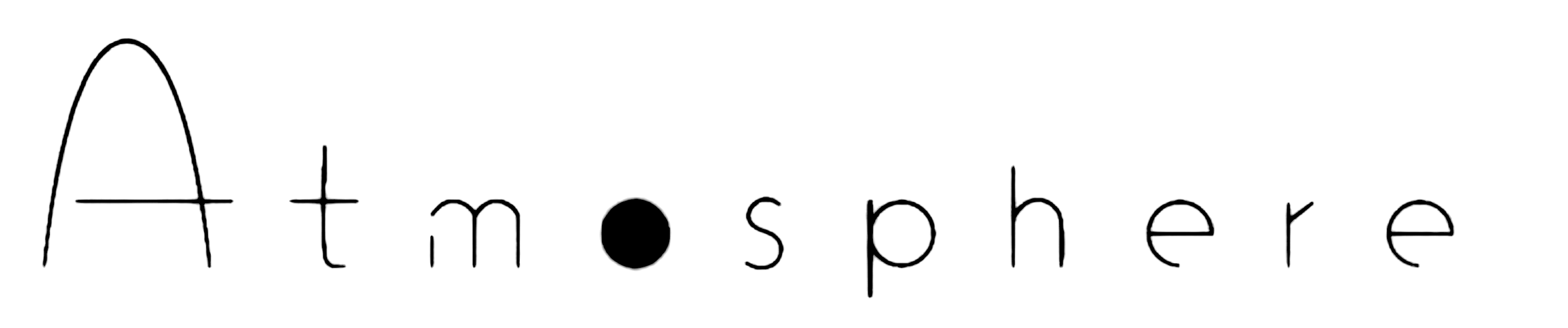
Hello! I’m trying to find this font in order to make a mock album cover, would anyone happen to recognise it? I thought with a lowercase e like that, the font identifier would pick up on it, but apparently not. Any help would be appreciated, even if its just to tell me it’s a custom font.
The font appears in this music video here
I searched and couldn’t find a close match. I suspect it is custom made by the maker, Harumaki Gohan, who lists themselves as a musician, illustrator, and animator. I enlarged the video to the full screen of my 27” iMac with Retina display, so I was able to get a very high res screen snap. I noticed that the curve of the right leg of the m does not meet the straight leg smoothly, and the curve on the left ends at the same place. Also, the legs of the m are not equally spaced. The two e’s are identical, but Gohan could just have cloned them.
Thank you so much! I had assumed that the font wasn’t custom given that Harumaki Gohan is japanese and didn’t really strike me as a font guy, but proves me wrong for assuming! That scan you made would be really useful, would you mind if I used it in my drawing? With credit, of course
Yes, feel free to use it. I uploaded a high-res file, so it should be suitable for you.